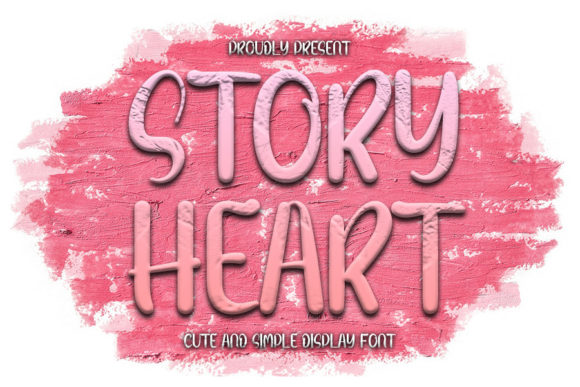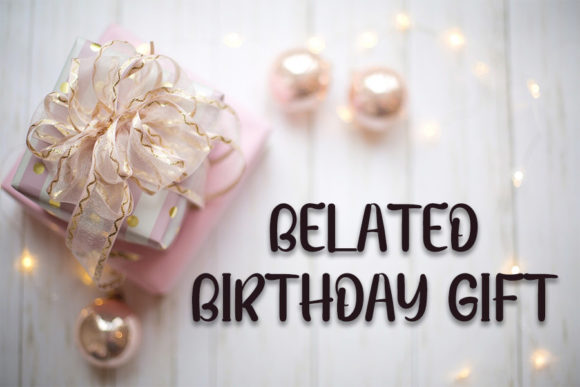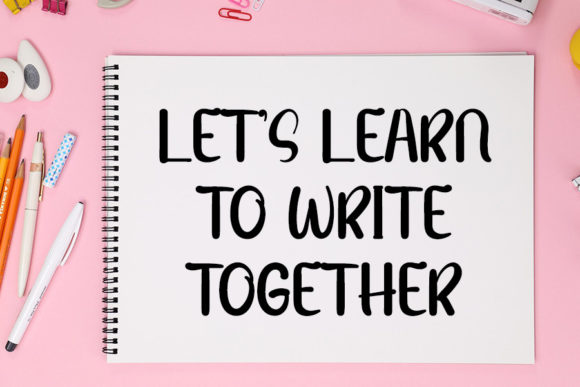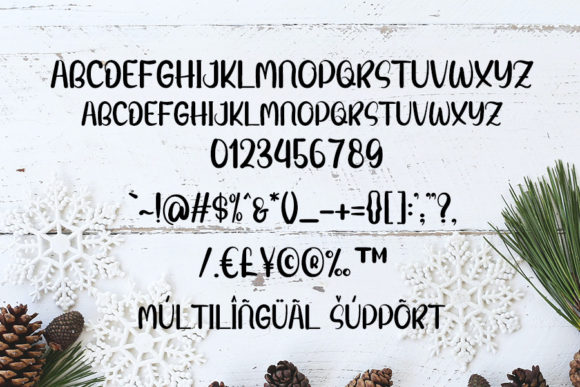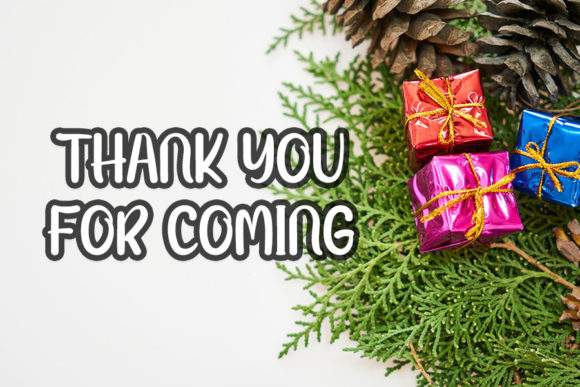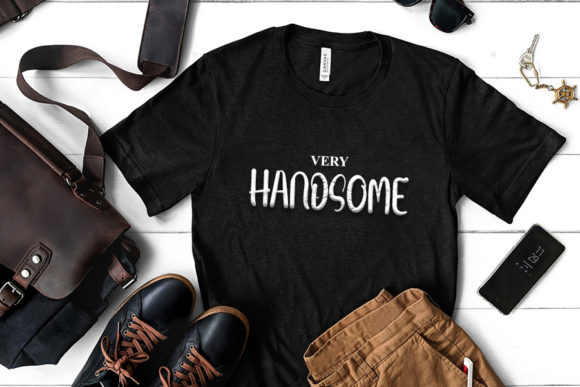
Story Heart Font
About Story Heart Font
Story Heart is a stylish handwritten font with a contemporary atmosphere and impeccable form, inspired by a timeless classic calligraphy. Balanced and varied, this font was designed to enhance the beauty of your projects.